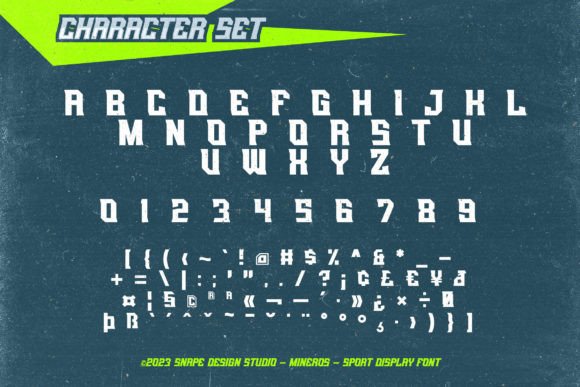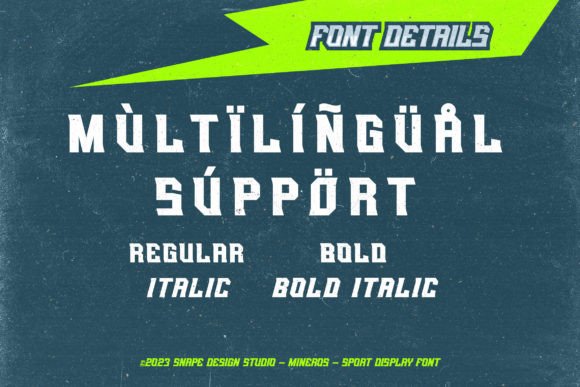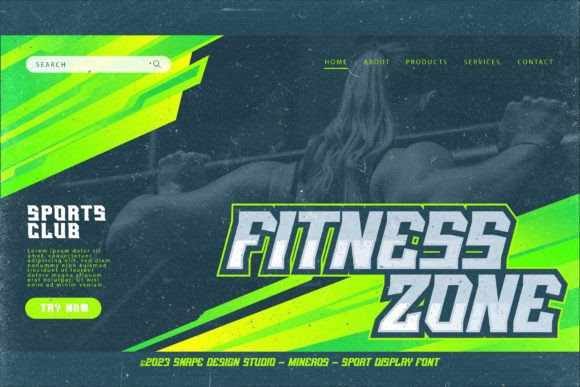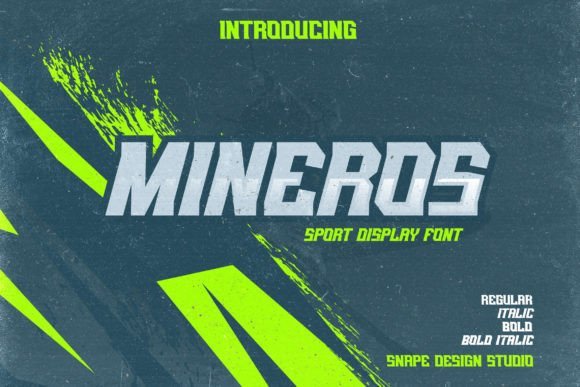
Introduction to Mineros Font
Mineros is a cool and dynamic sport-inspired display font that is perfect for creating athletic and energetic designs.
Its bold and athletic letters feature sharp angles and powerful curves, giving it a confident and competitive personality This font is great for logos, jerseys, and other projects that require a strong and sporty font.
Key Features of Mineros Font
Why Choose Mineros Font?
Mineros Font offers exceptional quality and versatility, making it a valuable addition to your design toolkit. Whether you’re creating for personal projects or commercial use, Mineros Font delivers professional results.